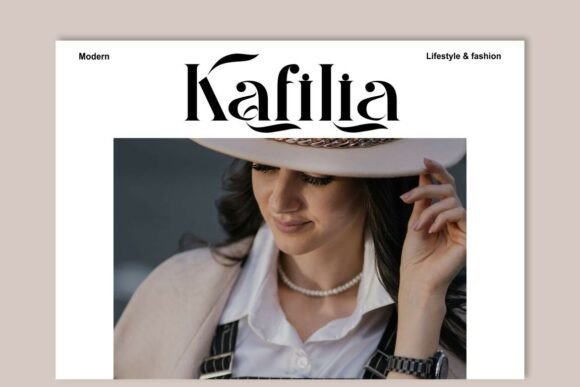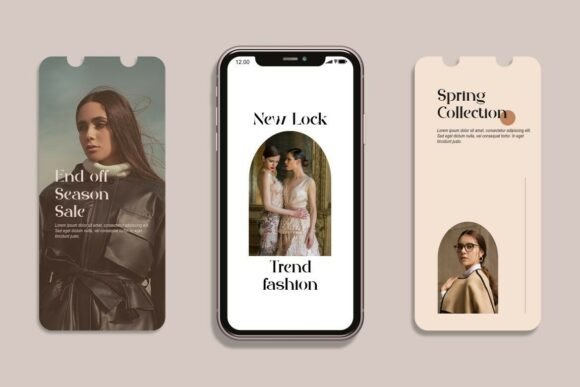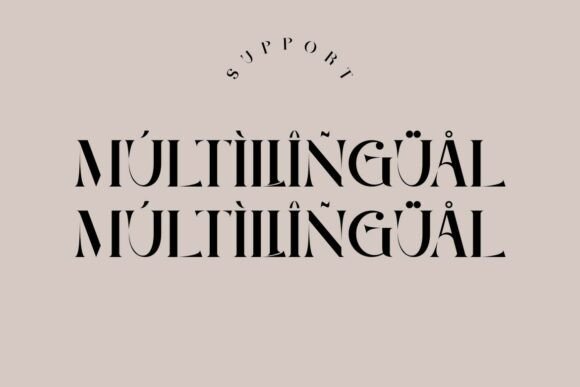
Introduction to Erifonia Font
Erifonia is a gorgeous and bold serif font, crafted to give your headlines and logotype projects a stylish touch.
This font reads as strong, confident, and dynamic and can add tons of nostalgic character to your designs .